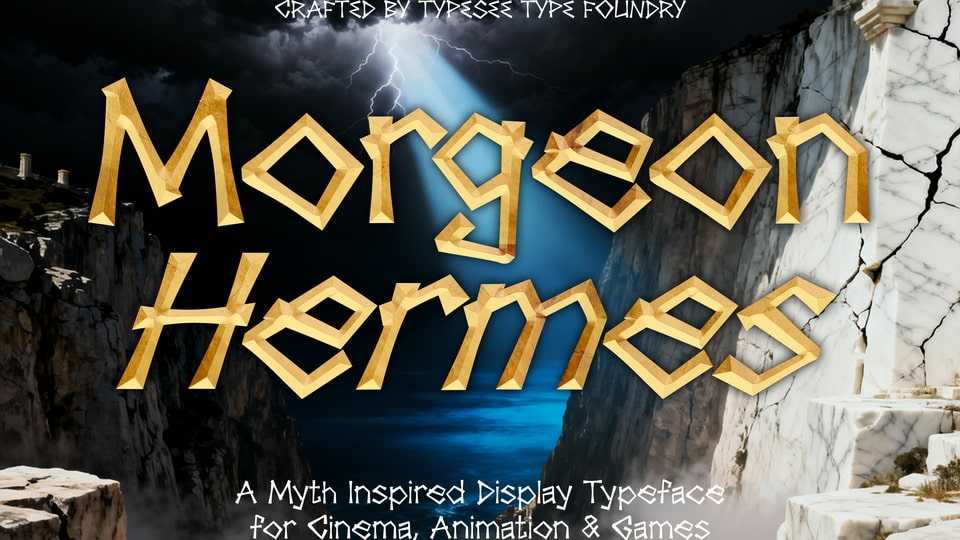
Download Morgeon Hermes font, a striking mythological display typeface designed to capture the timeless strength and mystique of ancient civilizations.